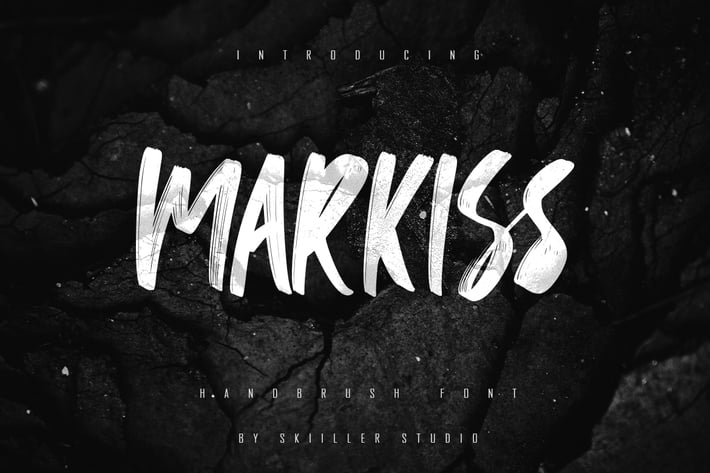
Markiss - Handbrush Font
Markiss was inspired by the Handwritten of natural brushes. Written in quick motion using a brush pen, it's a bit dry and looks realistic..
+ Ligature
+ Basic Latin Language Support (AÀÁÂÃÄÅCÇDÐEÈÉÊËIÌÍÎÏÑOØÒÓÔÕÖUÙÜÚÛWYÝŸÆß )